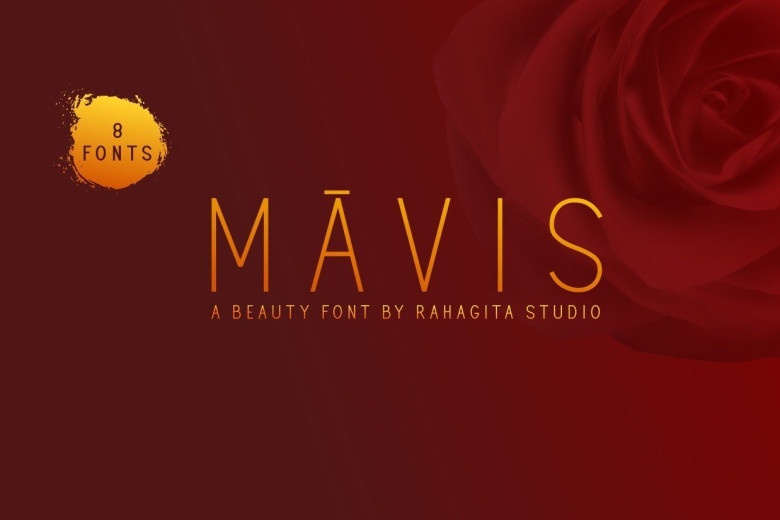
Mavis Sans Serif Font Free
Mavis Font is a geometric sans serif font family with maintains rationality in designing each form. With use the sharpness of the eyes, and remain logical, so that balance is maintained in each form. So, it will get a clean, neat, and perfect shape.